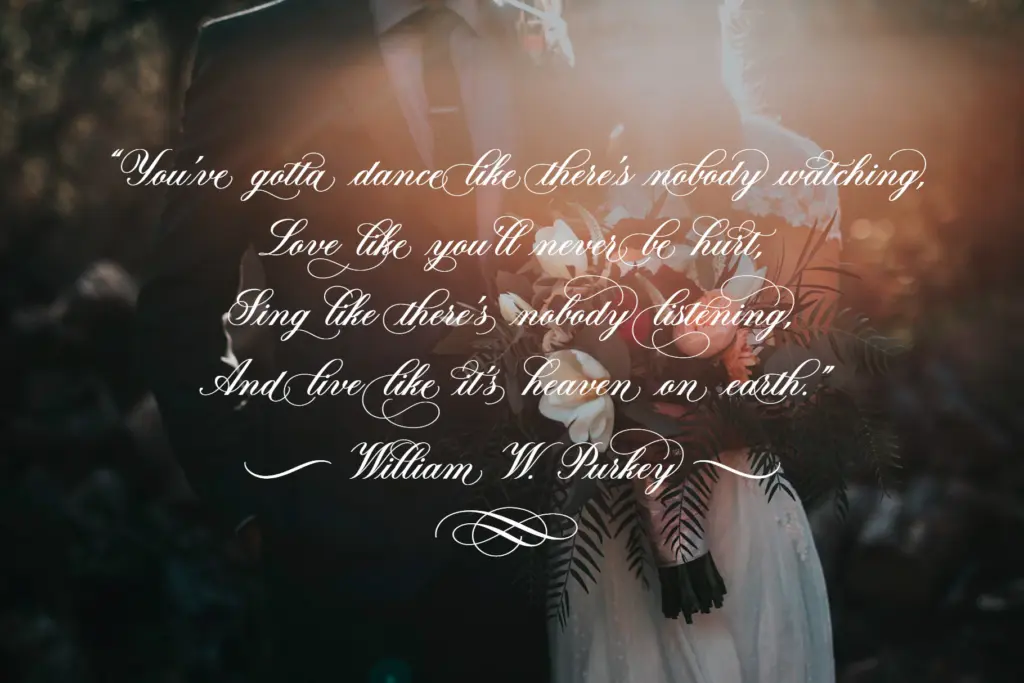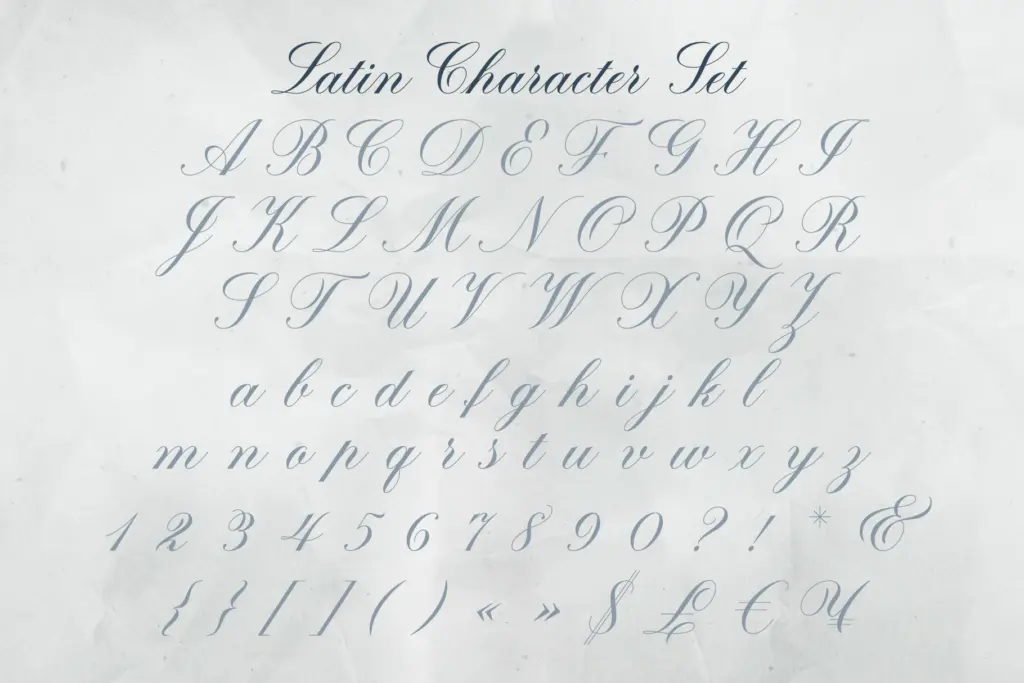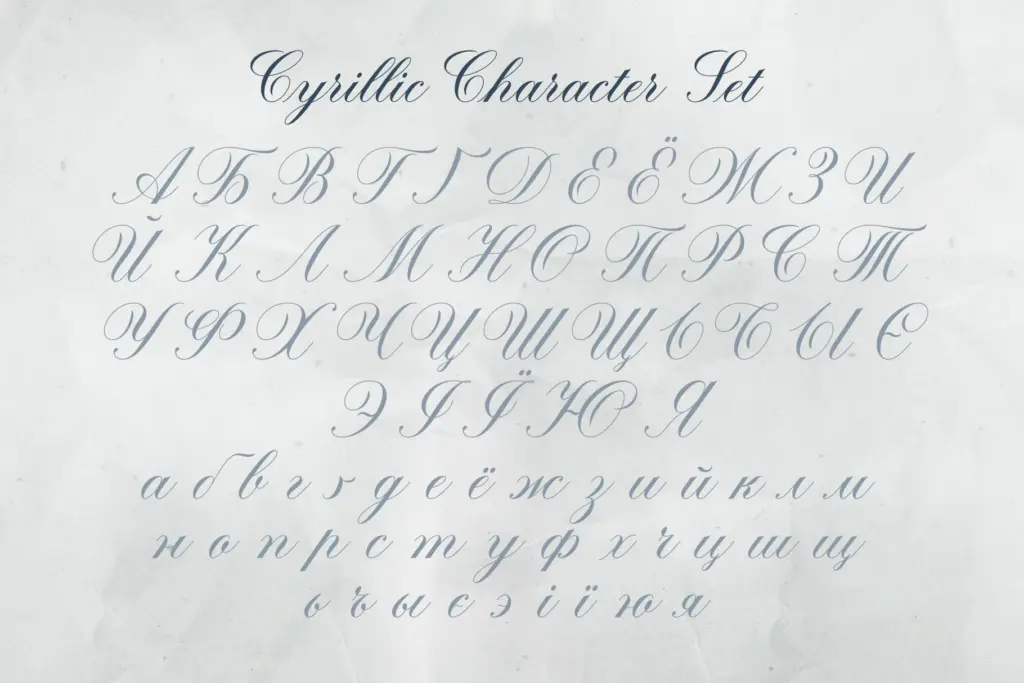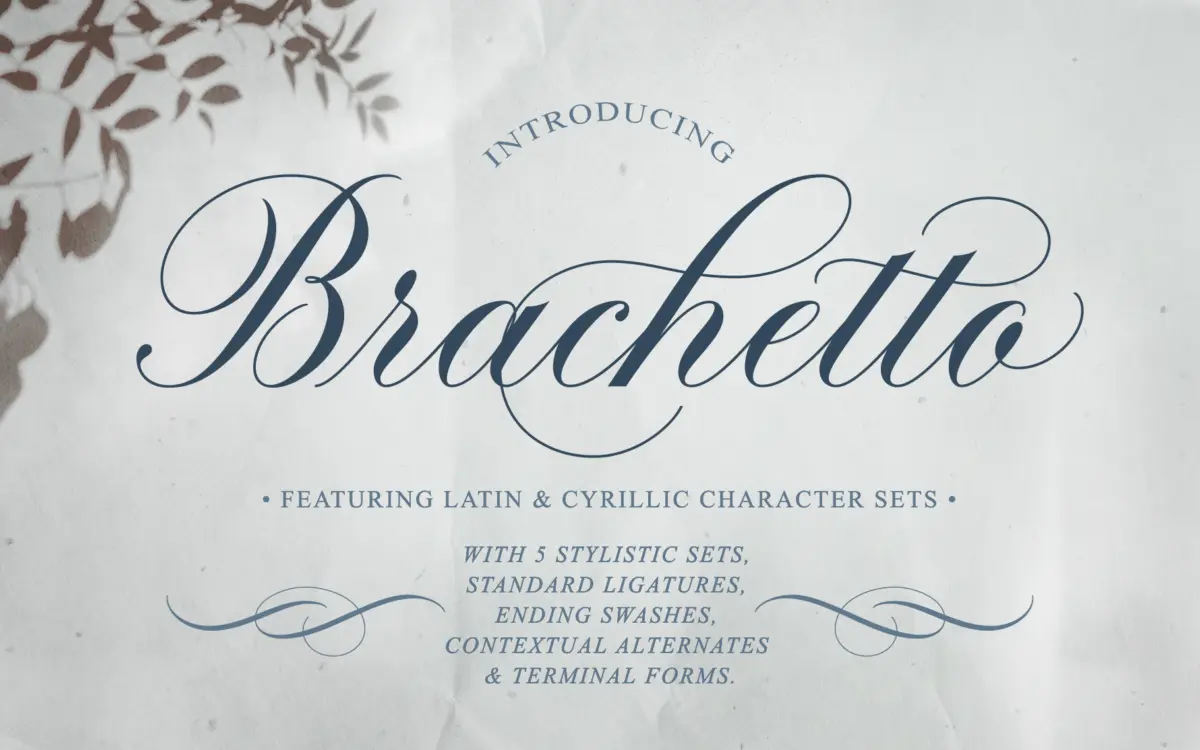
Brachetto sits in the copperplate-influenced camp of calligraphic scripts, but it doesn’t try to replicate a pointed-pen hand exactly. The contrast between thick downstrokes and hairline upstrokes is present but softened, and the letterforms lean slightly more upright than a classic copperplate would, which gives the face a steadier, more contemporary feel rather than an antique one. Ascenders and descenders carry restrained flourishes rather than the full loop-and-swash treatment, so the baseline stays readable even when individual letters get elaborate.
The joins between letters are where the drawing shows the most care. Entry and exit strokes are angled to connect smoothly across a range of letter combinations, and the terminal forms taper rather than stop abruptly, which keeps the rhythm of a word from feeling chopped up. It reads as formal without being stiff — closer to an engraved invitation than a handwritten note.
Brachetto’s practical strength is the depth of its OpenType set. Stylistic alternates give you multiple versions of the same letter, so repeated characters in a word or headline don’t all look identical. Contextual alternates handle some of that automatically, swapping in connecting forms based on what comes before or after. Standard ligatures smooth over awkward pairs, and there are separate terminal forms for word endings, which is a detail that matters more than it sounds — final letters in scripts often need a different weight of flourish than the same letter mid-word.
Beyond the Latin set, Brachetto includes a Cyrillic alphabet with its own stylistic alternates, which is not something every script typeface bothers to do properly. If your work needs to serve Russian- or Ukrainian-language clients, that’s a genuine point in its favour rather than a token gesture.
None of this comes for free, though. A script this ornamented needs an OpenType-aware application to unlock its range — dropped into a program that ignores ligatures and alternates, it will still look pleasant, but you’ll lose most of what makes it worth choosing over a simpler script.
This is a font for occasions that call for a bit of ceremony: wedding stationery, formal invitations, packaging for a premium product line, logotypes for brands that want to signal craft or heritage. It has enough polish for print work where the client expects something considered rather than default — perfume labels, boutique packaging, place cards.
It is less suited to anything that needs to be small or fast. Body copy, long headlines, or UI text will all fight the connecting strokes and flourishes; this is a display and accent typeface, not a workhorse. At larger sizes — headers, monograms, short lines of type — it holds up well and rewards the extra setup time needed to access its alternates.
- Terminal forms and contextual alternates keep repeated letters from looking mechanical
- Full Cyrillic alphabet with matching stylistic alternates, not just a token addition
- Connecting strokes are drawn with enough care that joins stay smooth across letter combinations
- Requires an OpenType-aware application to access most of its features, or it loses its point
- Not legible at small sizes or in long text, strictly a display and accent script
Brachetto is a well-drawn formal script with genuine depth in its alternates and a properly built Cyrillic set. It's suited to invitations, packaging and logotype work, not to long-form text, and it needs an OpenType-capable application to earn its keep.